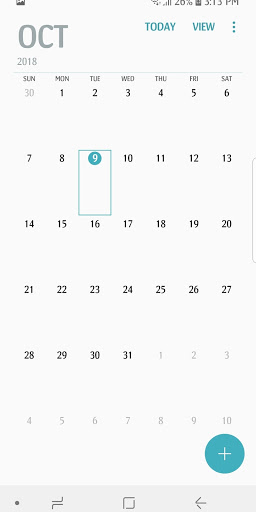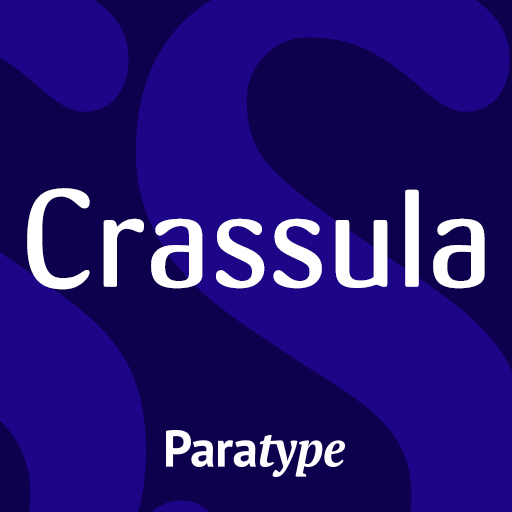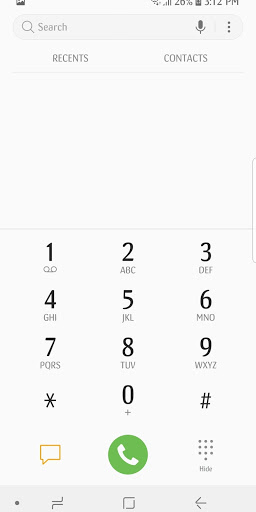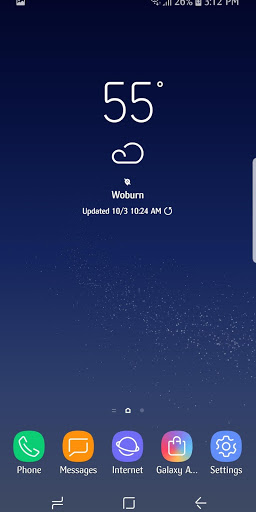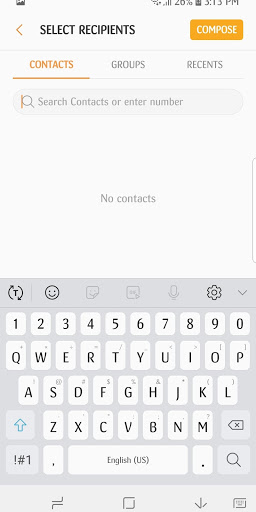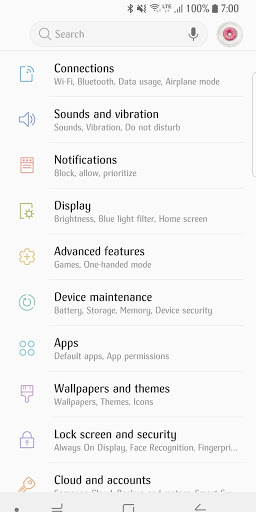
Crassula Latin and Cyrillic FlipFont
Description of Crassula Latin and Cyrillic FlipFont
Crassula™ by Paratype is a universal font. It is formal and amusing at the same time. A perfect combination of functionality and style for your device.
Pan-European and Cyrillic character set supports Western, Central and Eastern European as well as Belarusian, Bulgarian, Macedonian, Russian, Serbian and Ukrainian languages.